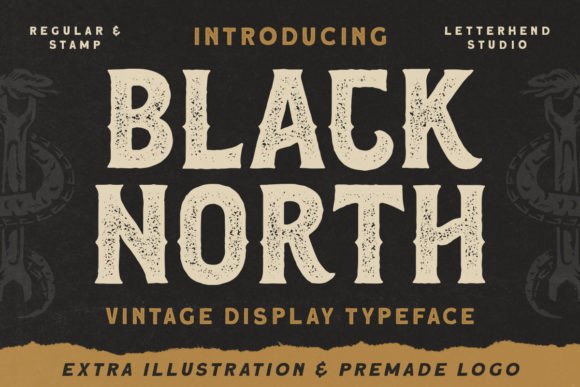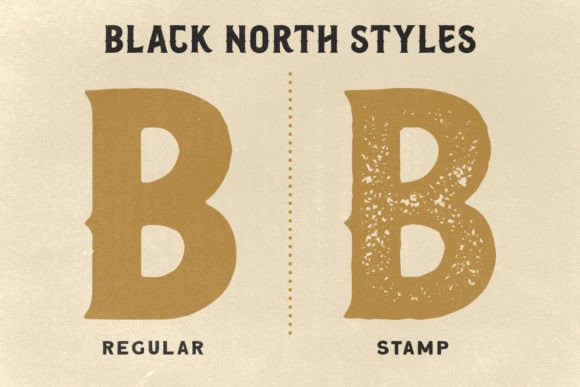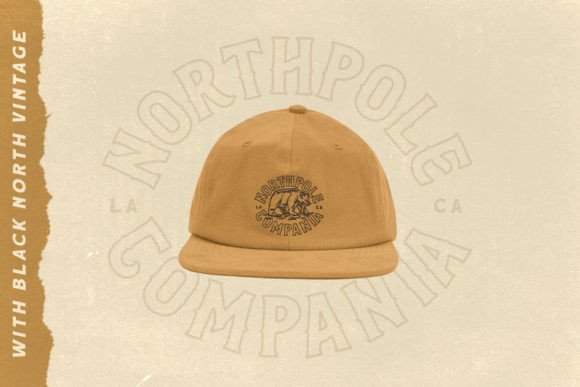
Black North Font: Retro Display Typography for Vintage Logo Design
About the Black North Font
Crafted with precision, the Black North Font is ready to bring your ideas to life. Black North feels playfully nostalgic and delivers an incredible vintage aesthetic. Use this stylish display font to add that special retro touch to any design idea you can think of!
Black North’s playful vintage aesthetic makes it ideal for headlines, short text blocks on posters, or branding elements needing a retro feel. It works exceptionally well in packaging design for products aiming for a nostalgic or vintage market appeal. Avoid using it for body text or UI elements; its decorative nature compromises readability in extended passages.
Pairing Black North effectively depends on the desired emphasis. For a balanced, retro feel, consider pairing it with a clean sans-serif like Open Sans or a slightly more geometric sans-serif such as Futura. To enhance the vintage vibe further, a serif like Garamond or Playfair Display would create a classic juxtaposition.
Its core personality is undeniably playful and bold, but with an underlying sense of warmth and approachability. This makes it suitable for brands focused on nostalgia, craftsmanship, or vintage-inspired products and services.